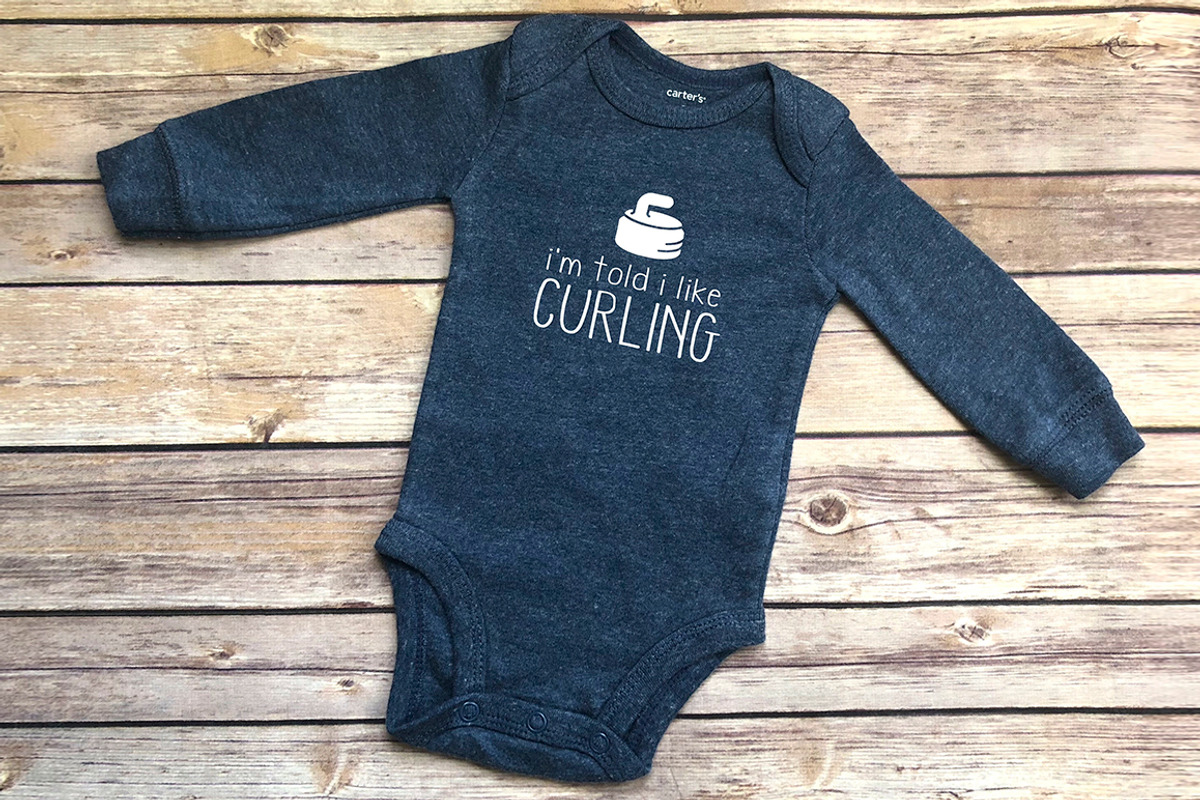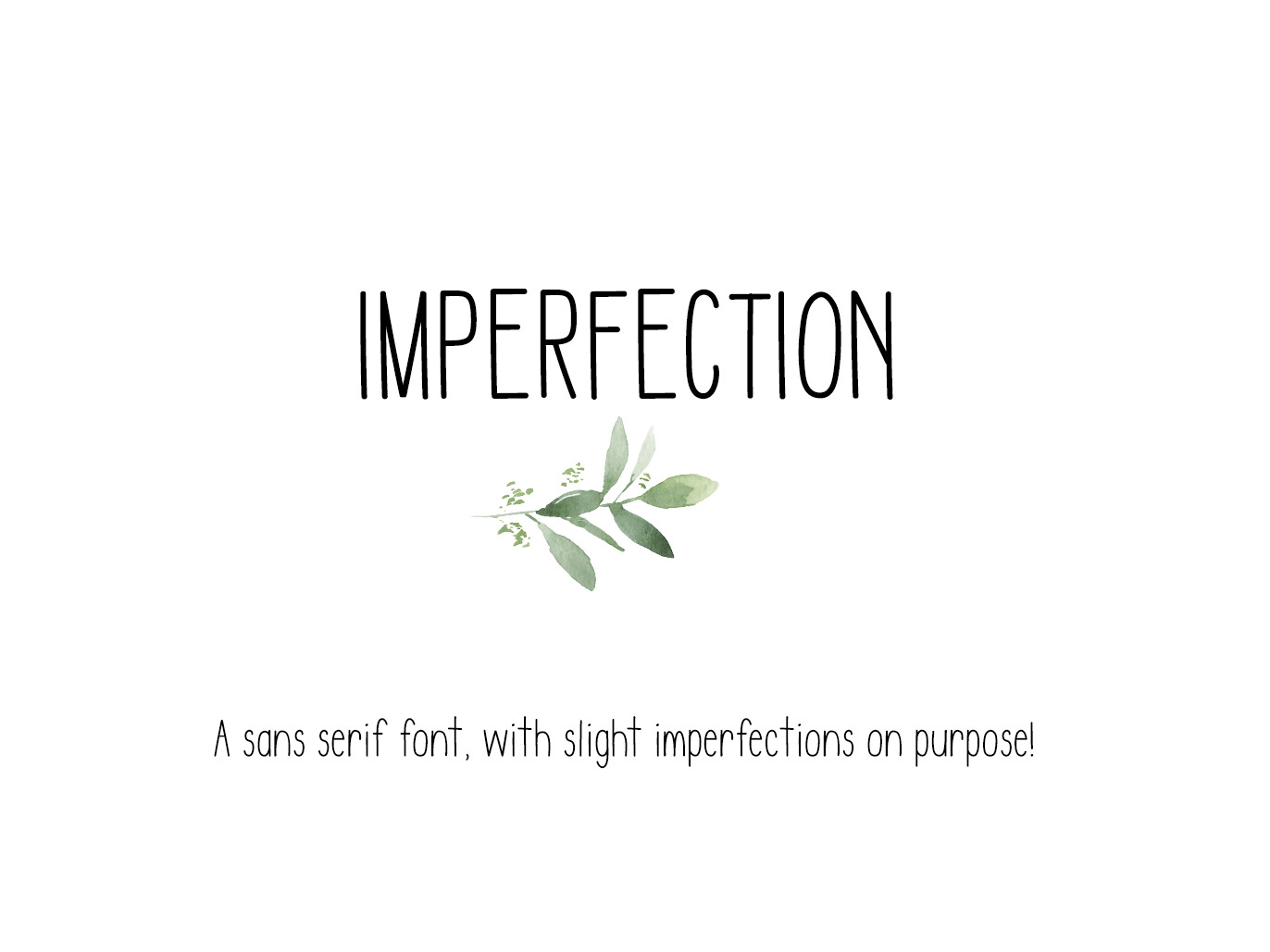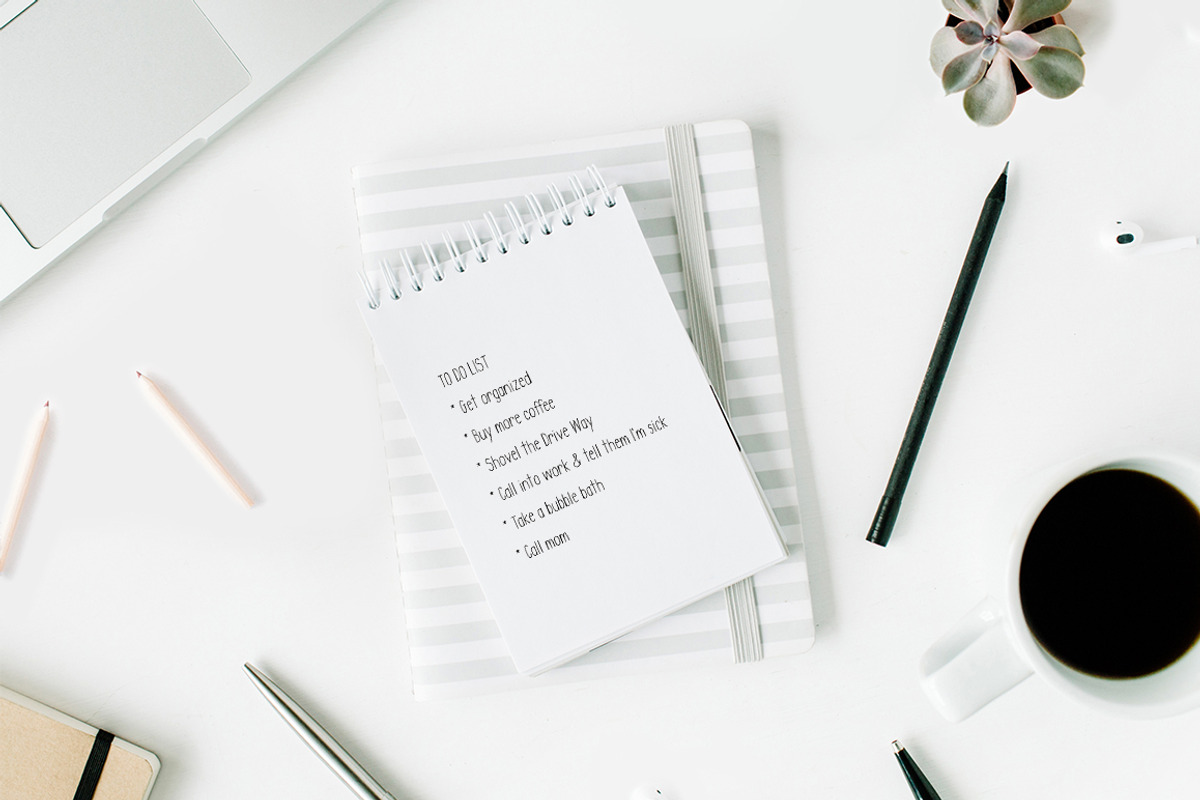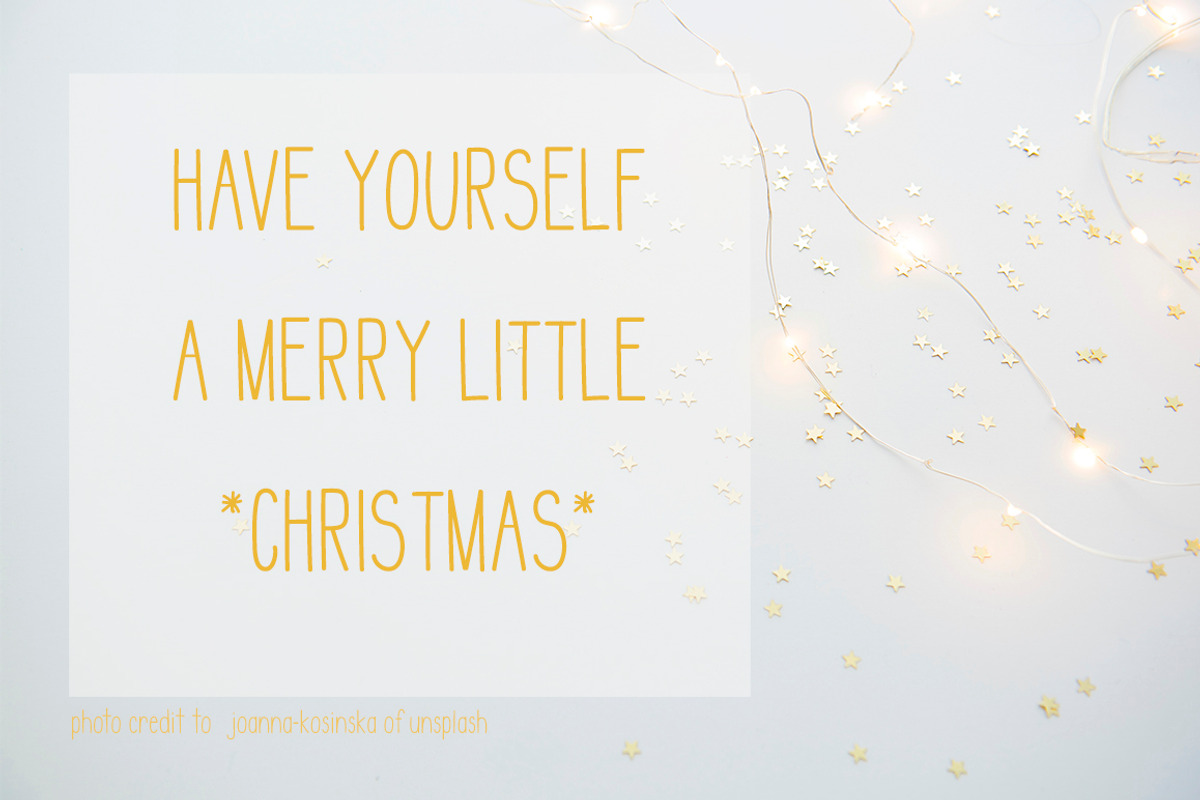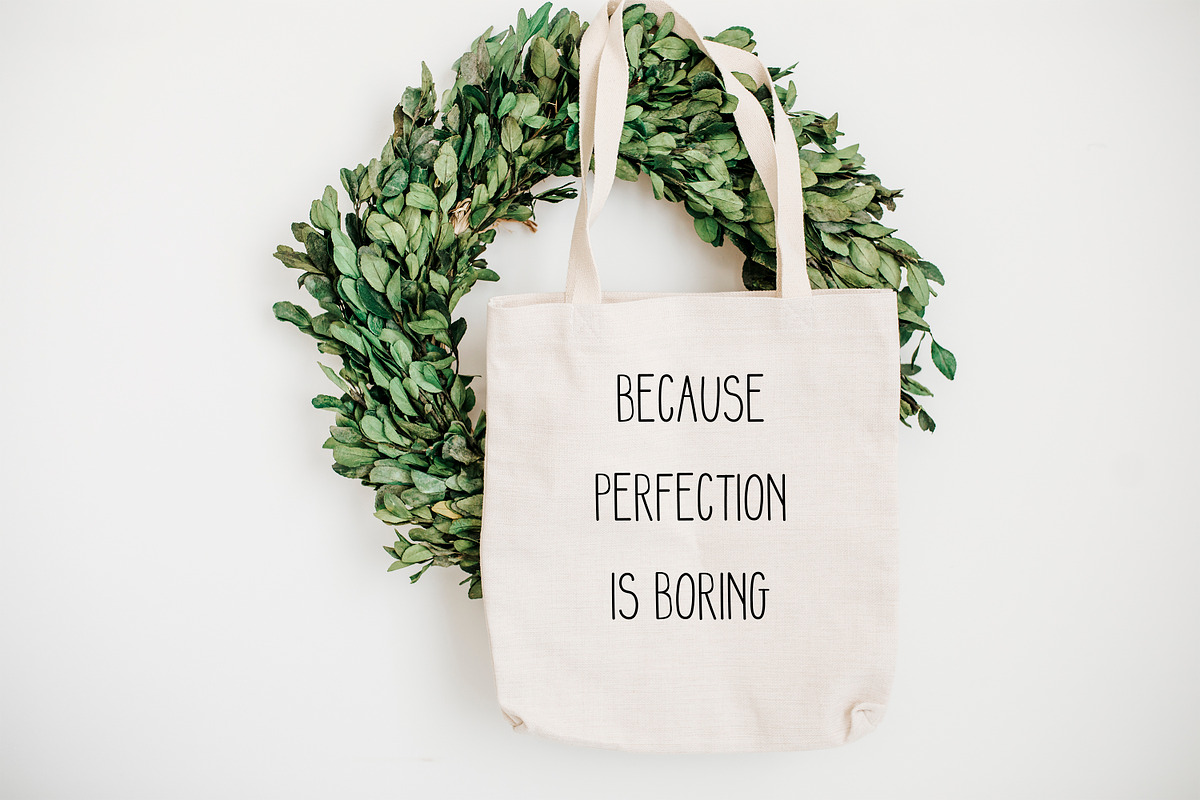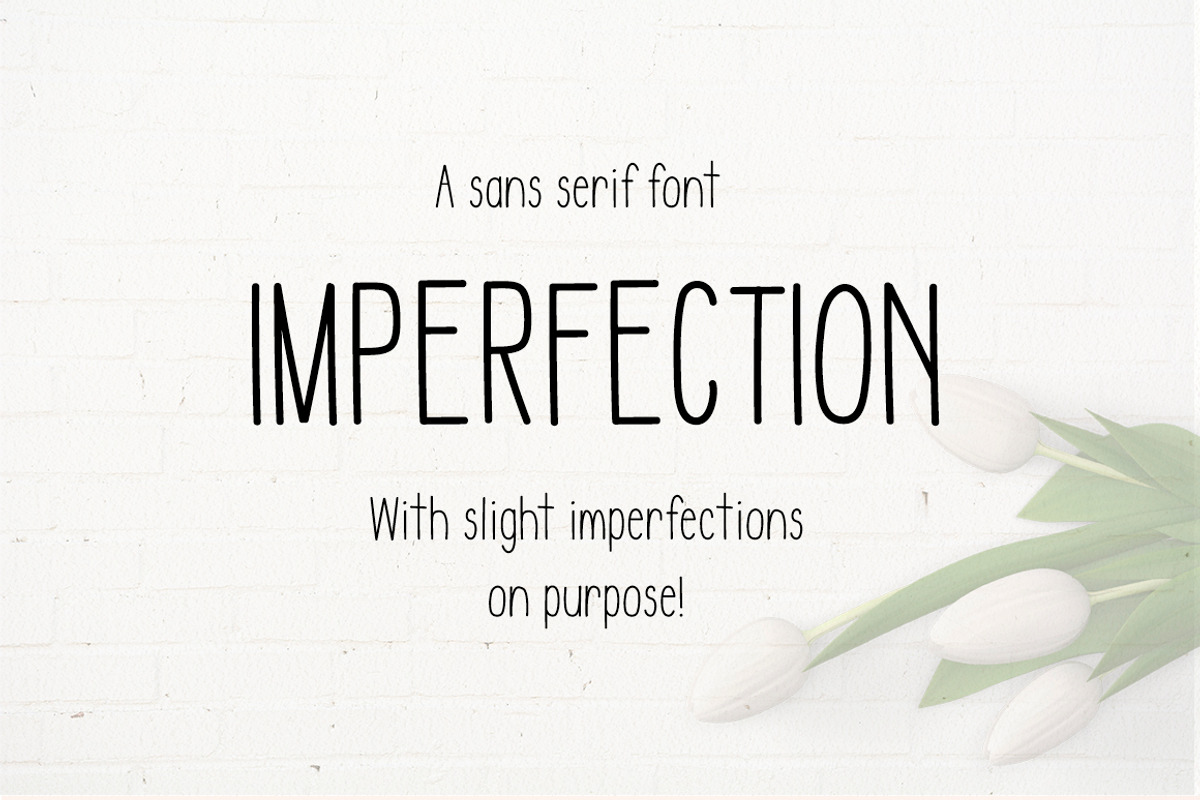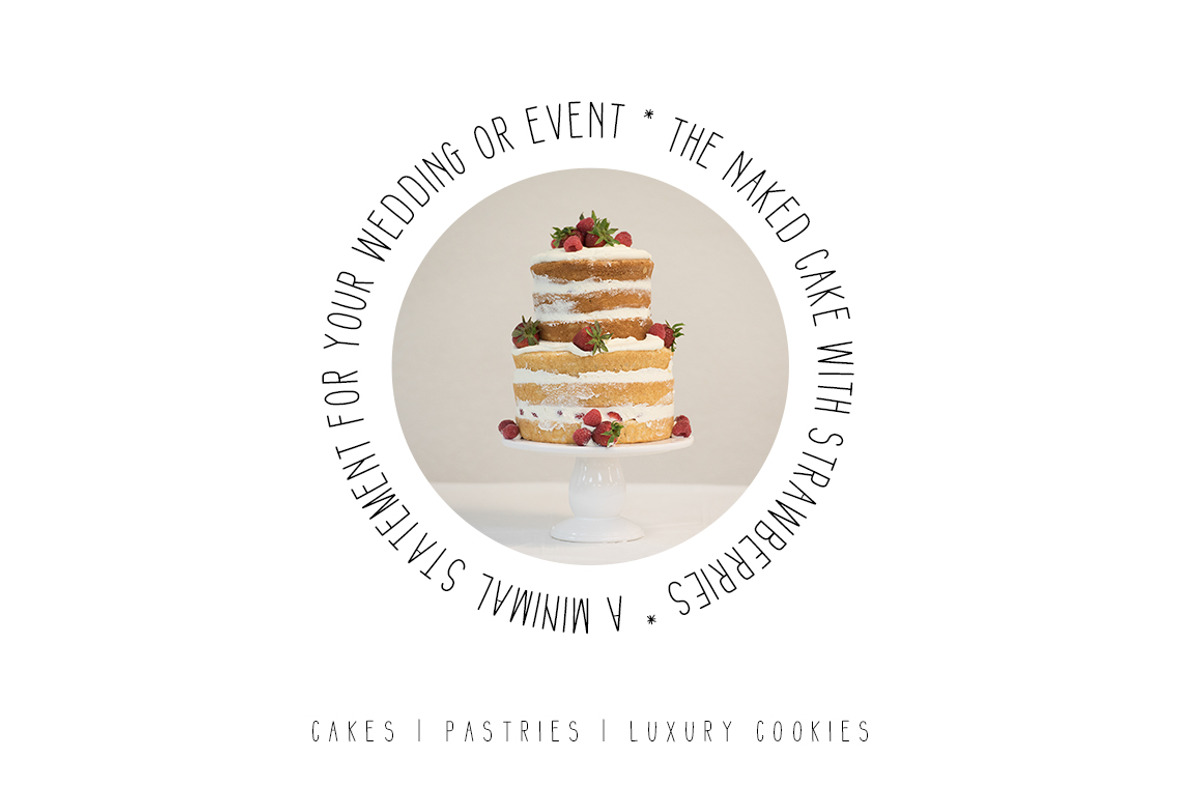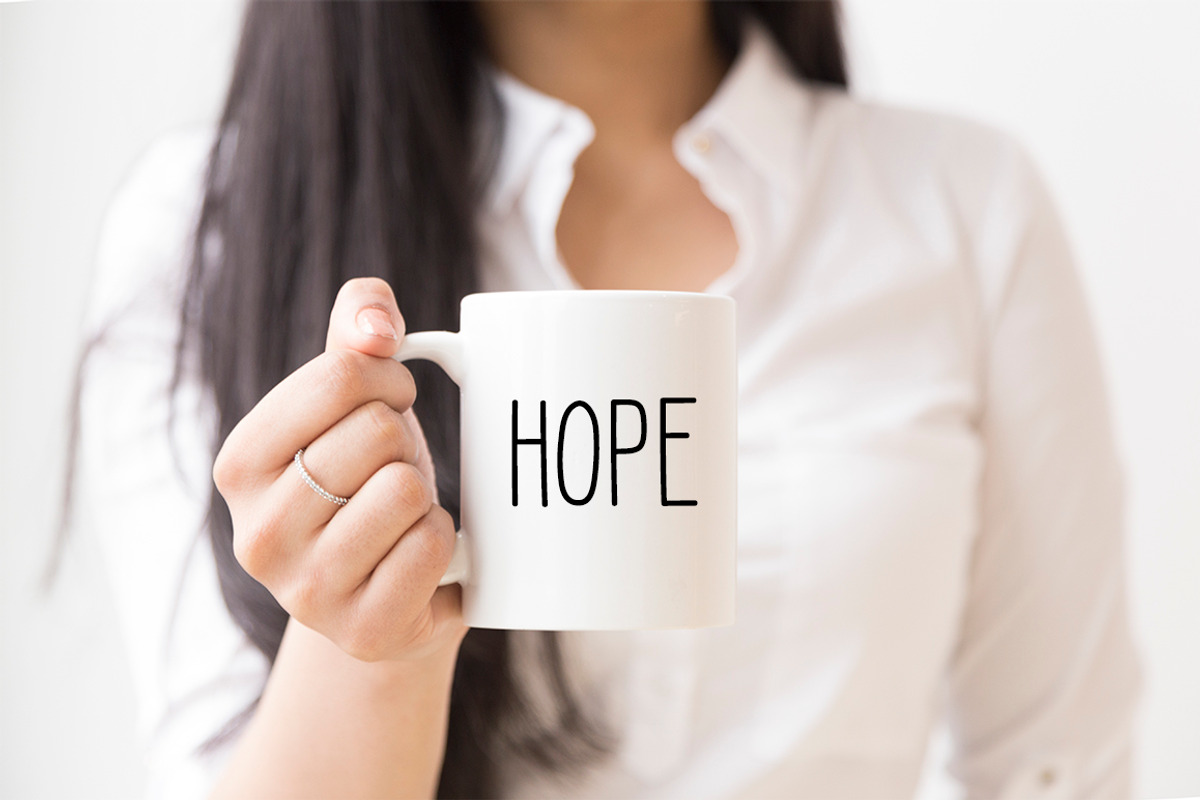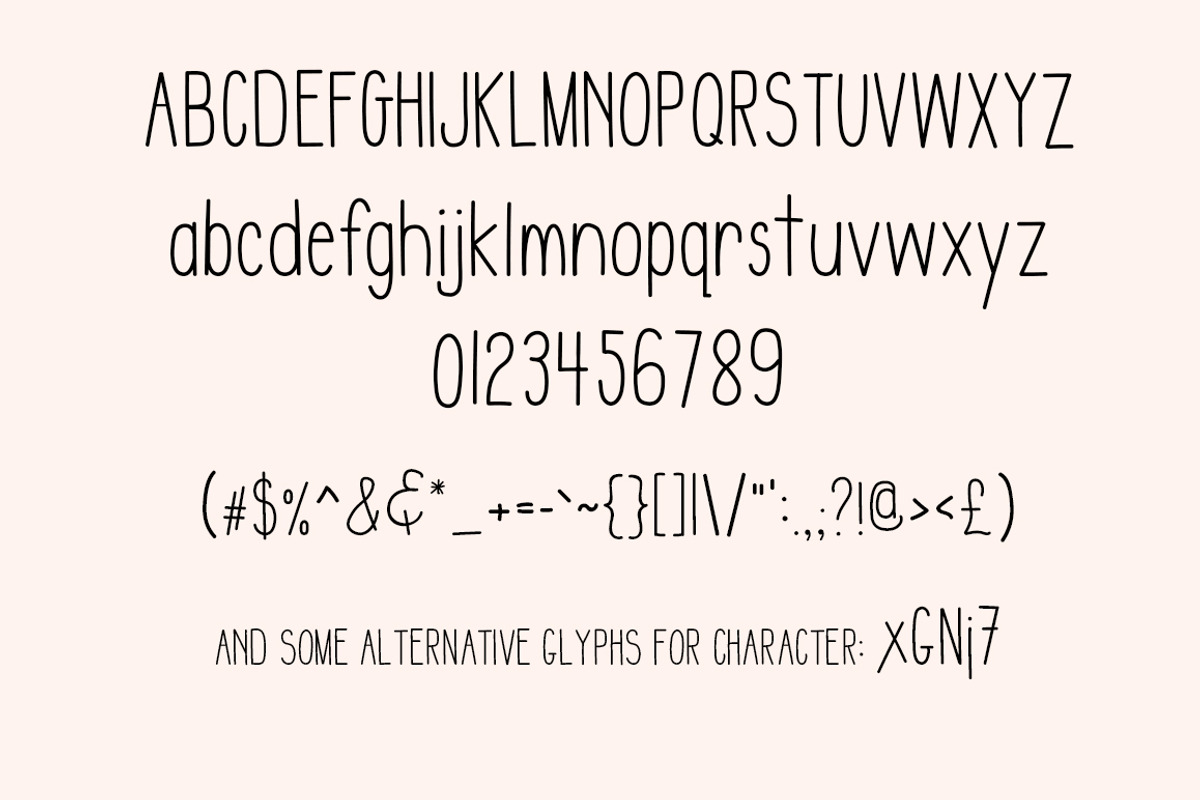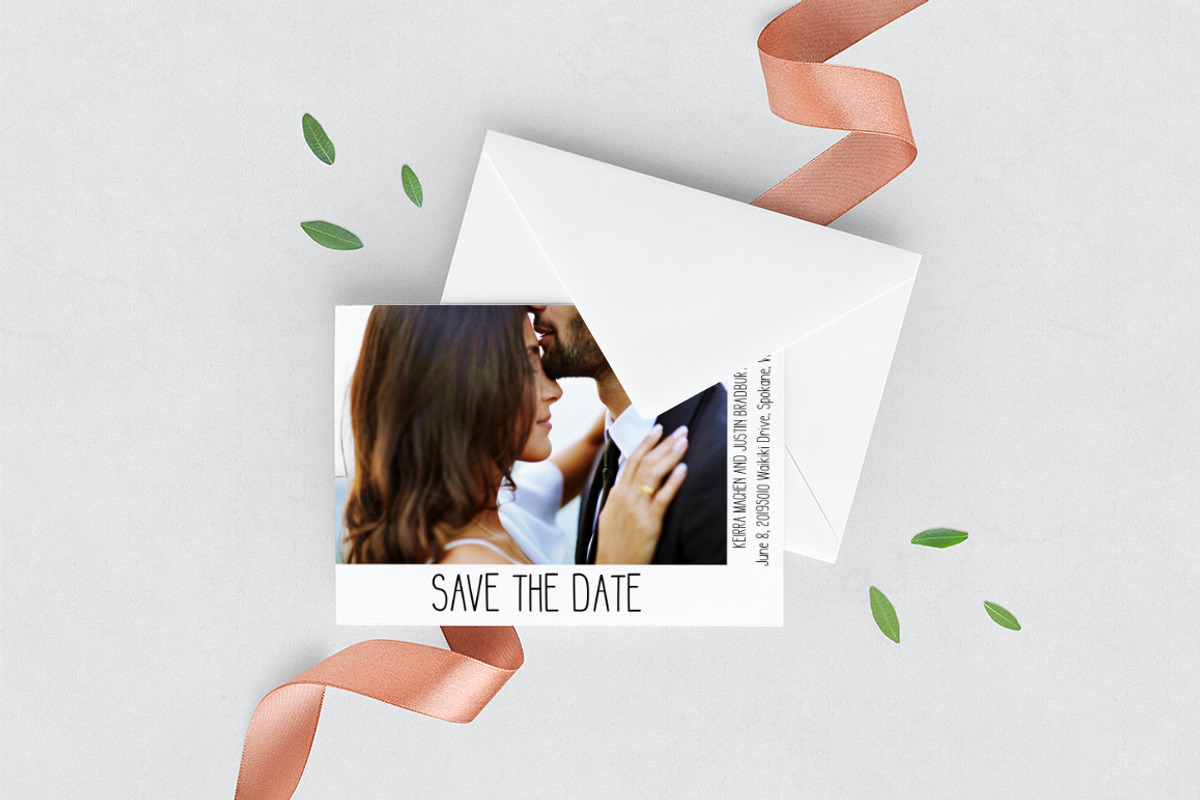
Sans Serif Handwritten font
A hand written sans serif font, with slight imperfections on purpose! OTF and TTF vector Font
- A to Z Capital letters
- a to z lower case letters
- 0-9 numbers
- !@#$%^&*()_-+=|}]{["':;~`?/,. (and no I'm not swearing at you!)
- Some extra alternative glyphs!
- NOW with all of the European diacritic marks.